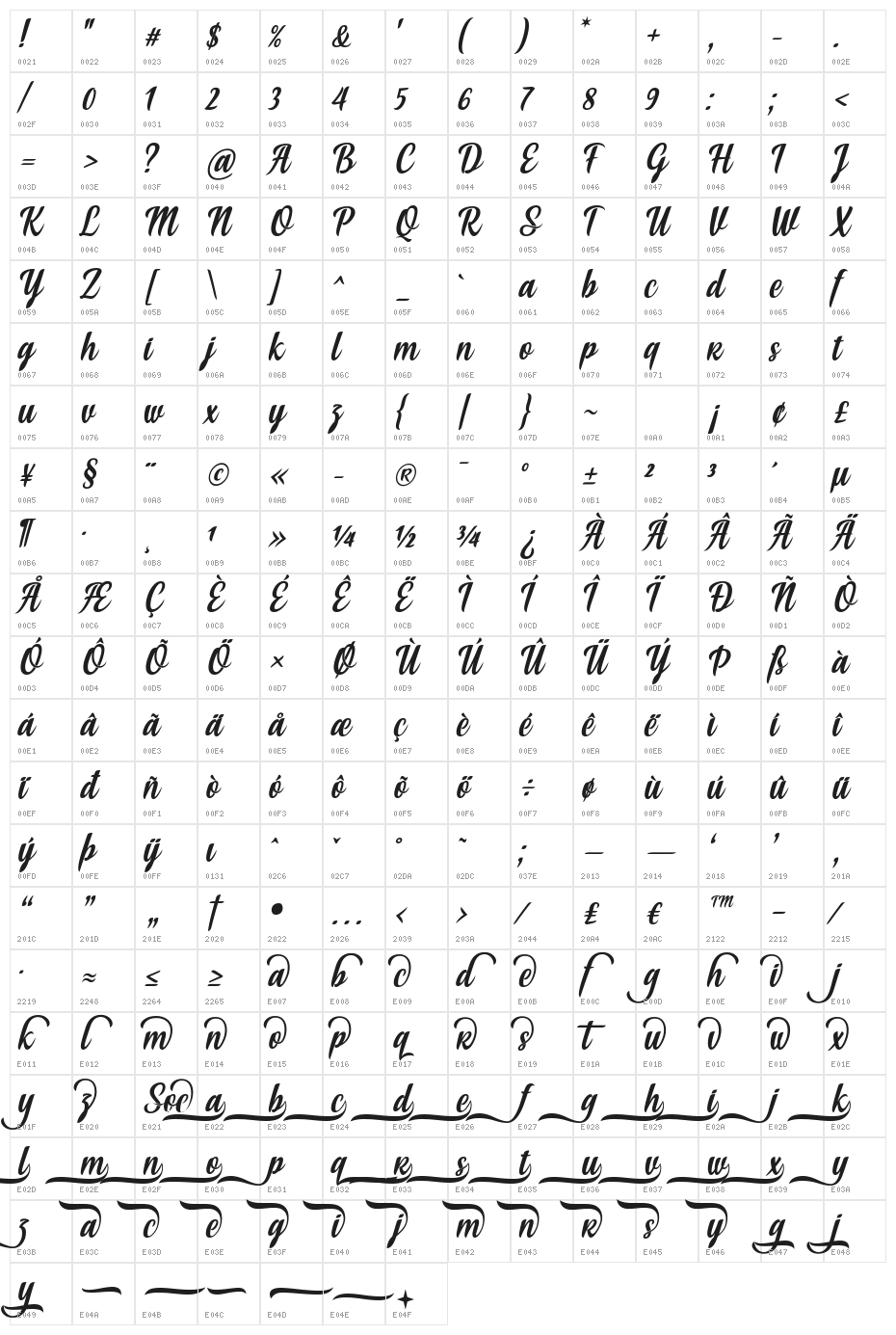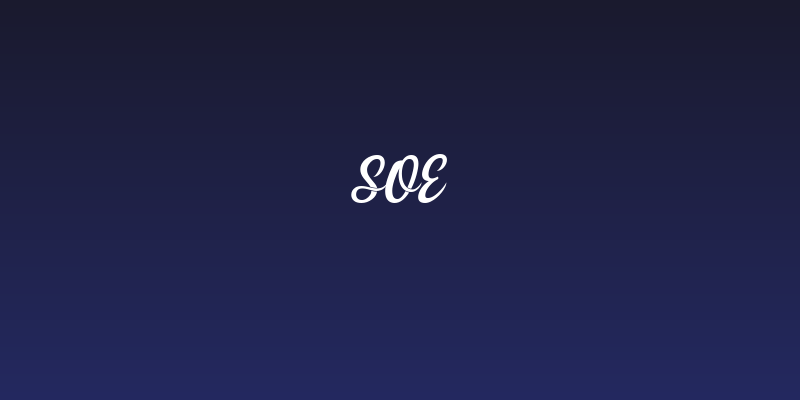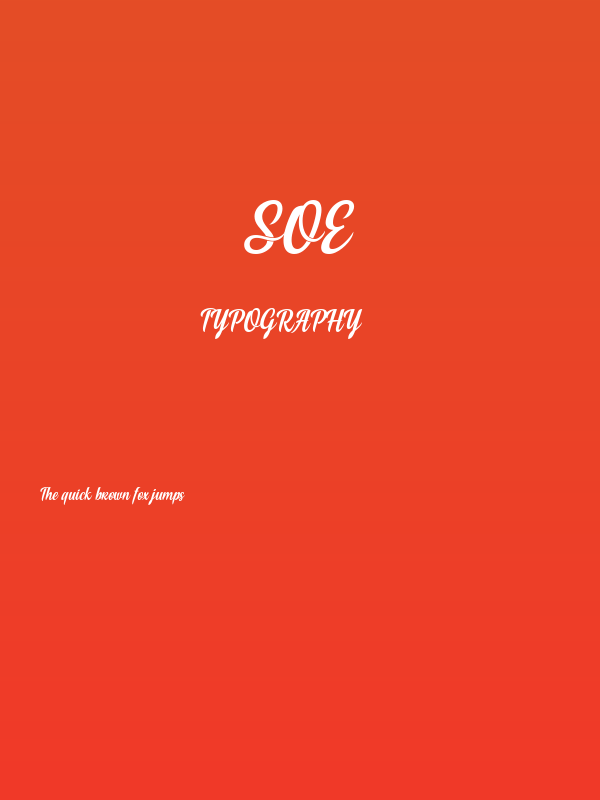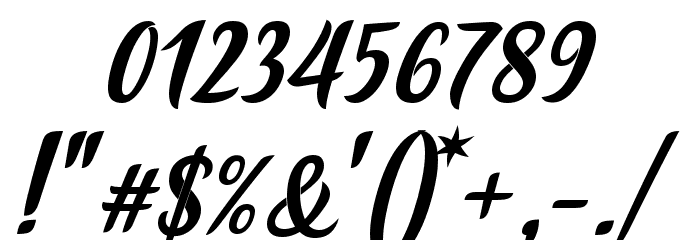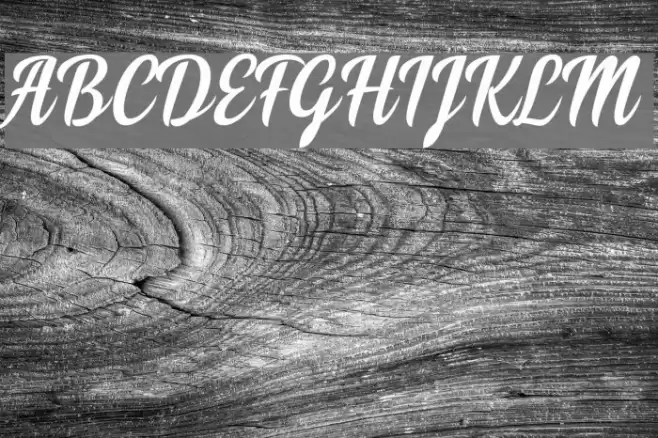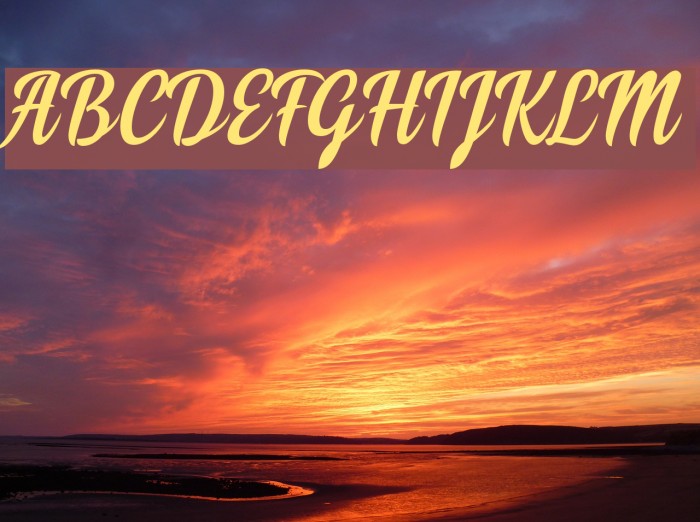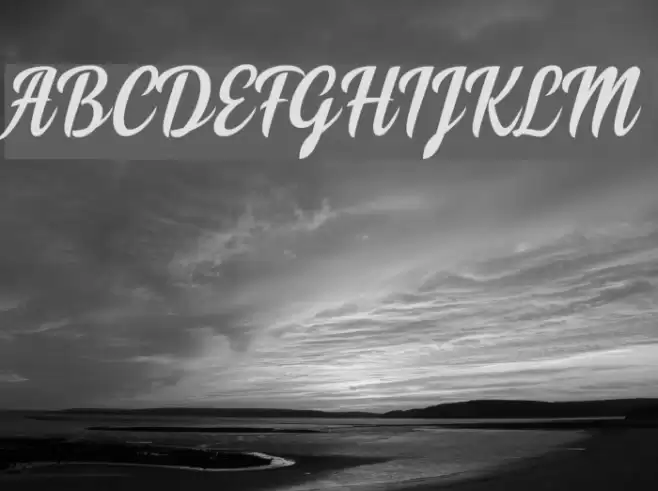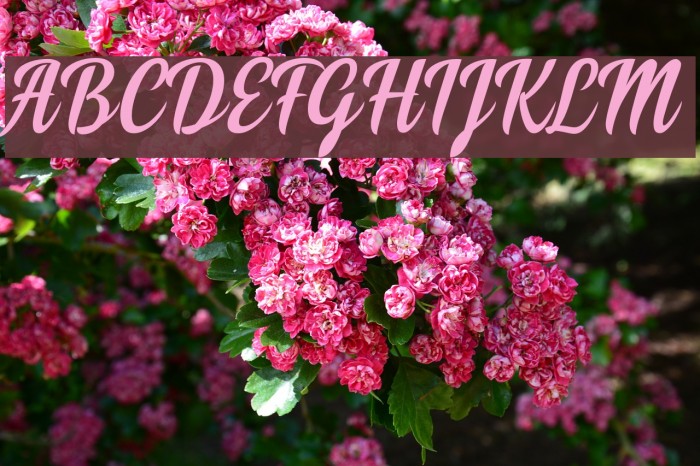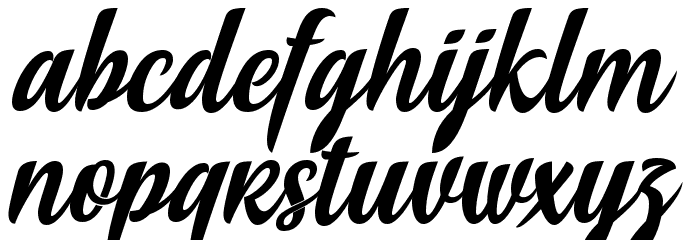
Soe Font
Soe Description
This font features a bold and flowing script style, characterized by its elegant and dynamic curves. The letters are interconnected, creating a sense of fluidity and movement. The uppercase letters are particularly ornate, with sweeping strokes and flourishes that add a touch of sophistication. The lowercase letters maintain a consistent style, with smooth transitions and rounded forms. The numerals and special characters are designed to complement the overall aesthetic, ensuring a cohesive look across all elements. This font is well-suited for projects that require a touch of elegance and flair.
| Overall Style | Elegant, Decorative |
| Use Case | Logos, Headlines, Invitations |
| Proposed Projects | Ideal for wedding invitations, branding, logos, and elegant packaging design. |